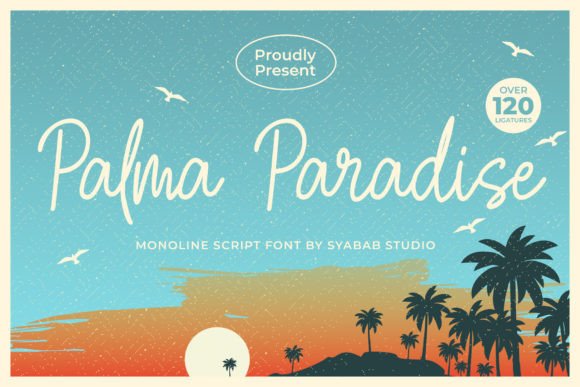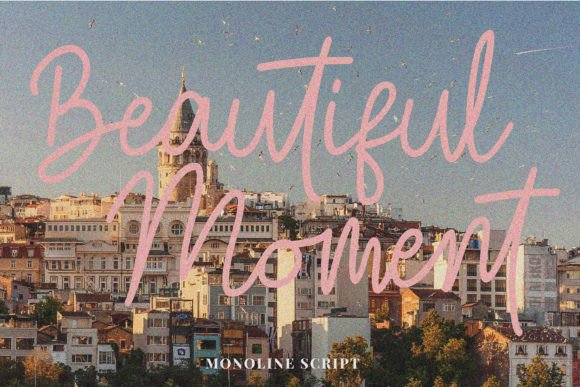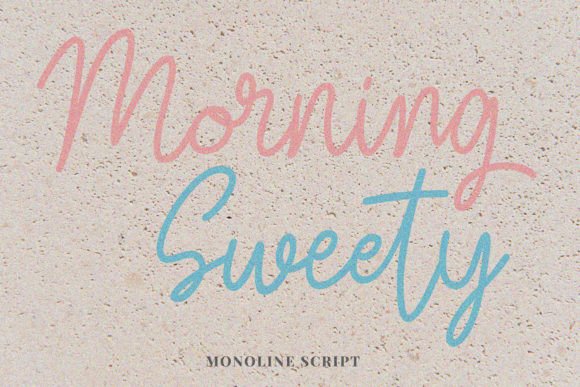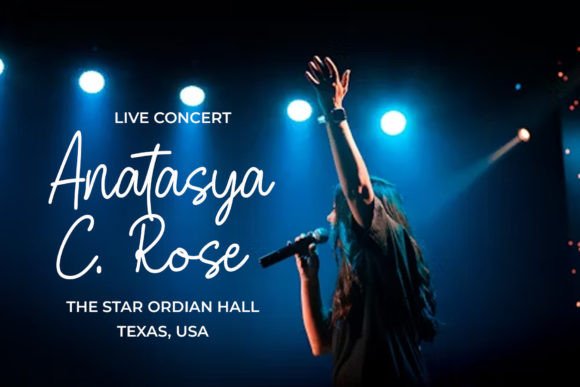
Palma Paradise Font
About the Palma Paradise Font
Explore the possibilities with Palma Paradise Font, a font that offers both beauty and functionality. Palma Paradise is a charming monoline script font that exudes a sense of laid-back elegance and tropical vibes. With its smooth curves and flowing strokes, this font effortlessly captures the essence of paradise living. Whether used for branding, invitations, or social media posts, Palma Paradise adds a touch of sophistication and warmth to any design. Let your creativity flourish with this versatile and stylish typeface.
Palma Paradise’s relaxed elegance makes it ideal for branding projects emphasizing luxury travel, spas, or high-end lifestyle products. It works exceptionally well in headlines, short taglines, and on packaging where its charm can shine. However, its monoline weight and script style limit legibility in body text or UI elements. Avoid using it for large blocks of text.
For optimal visual harmony, pair Palma Paradise with a clean sans-serif like Montserrat for a modern contrast, or a classic serif like Garamond for a more traditional feel. A geometric sans-serif such as Bebas Neue could add a touch of boldness to headlines when paired with Palma Paradise as a subheading.
Its overall personality is sophisticated yet approachable, conveying a sense of calm and inviting luxury. This makes it unsuitable for projects requiring a strong, bold, or overtly playful feel.
Palma Paradise Font Usage Examples
Palma Paradise Font Example